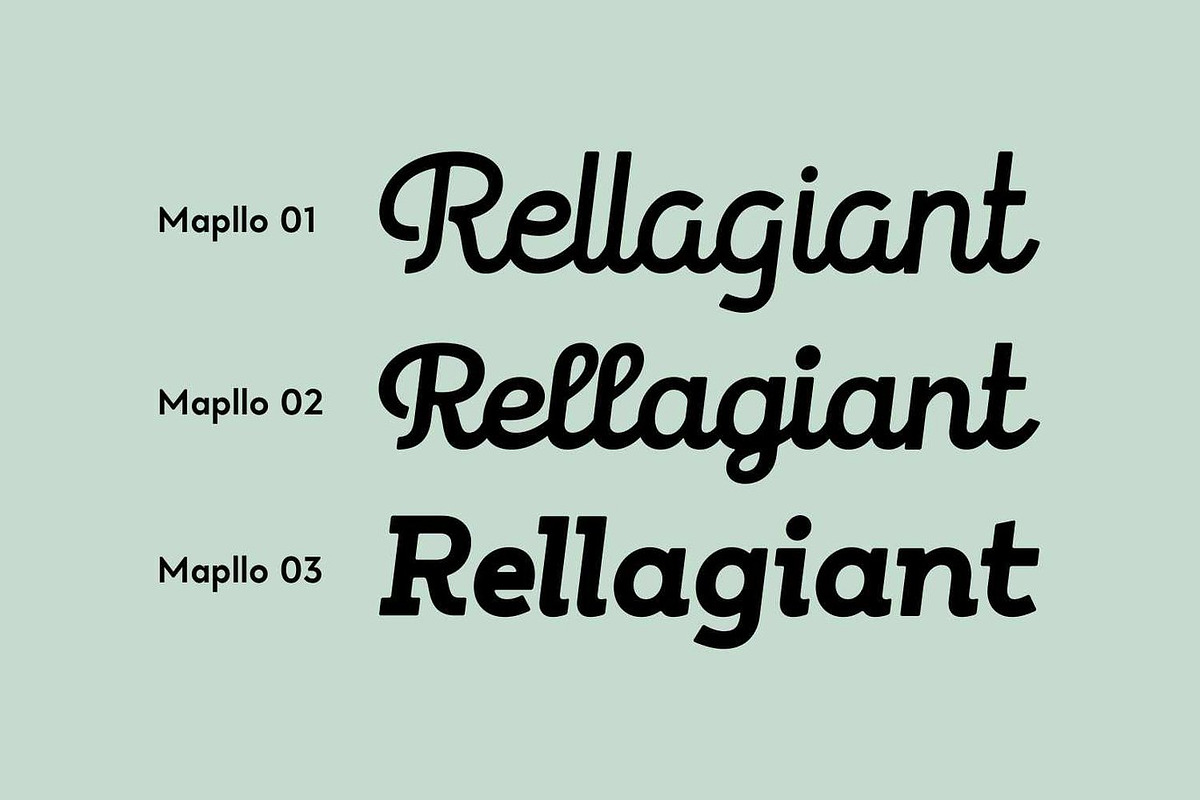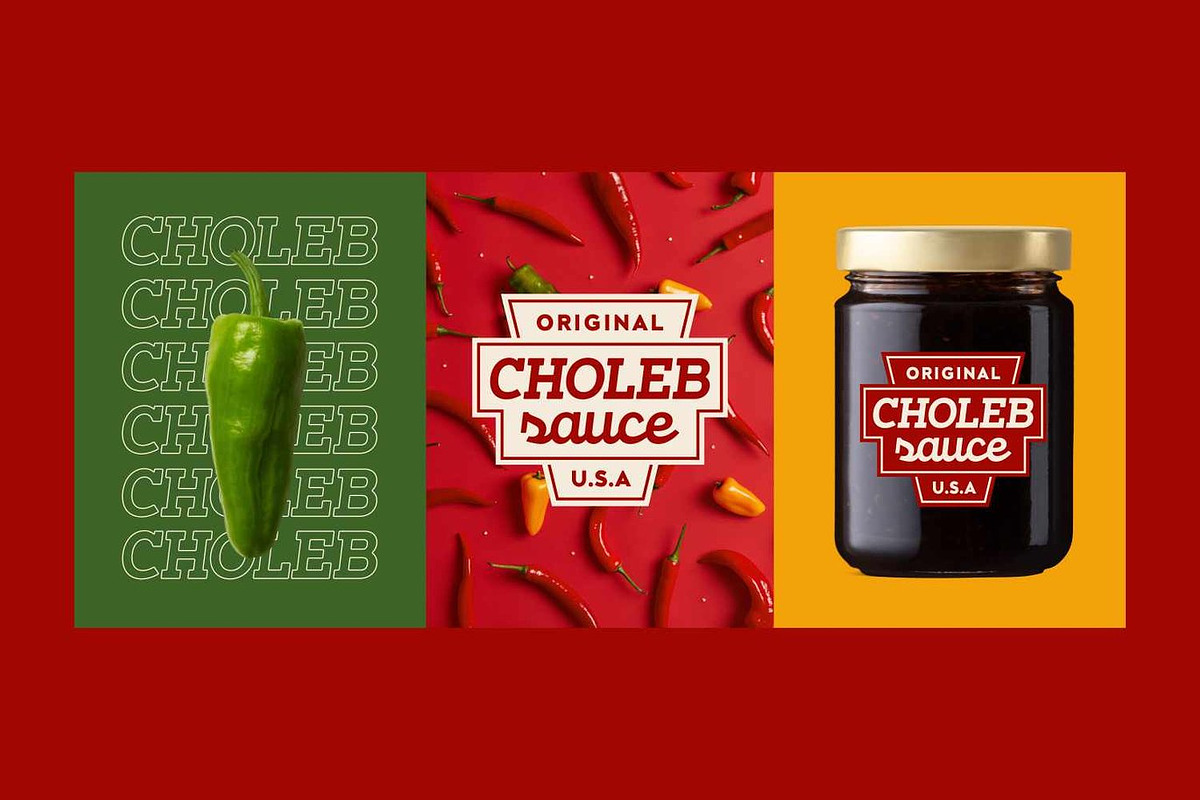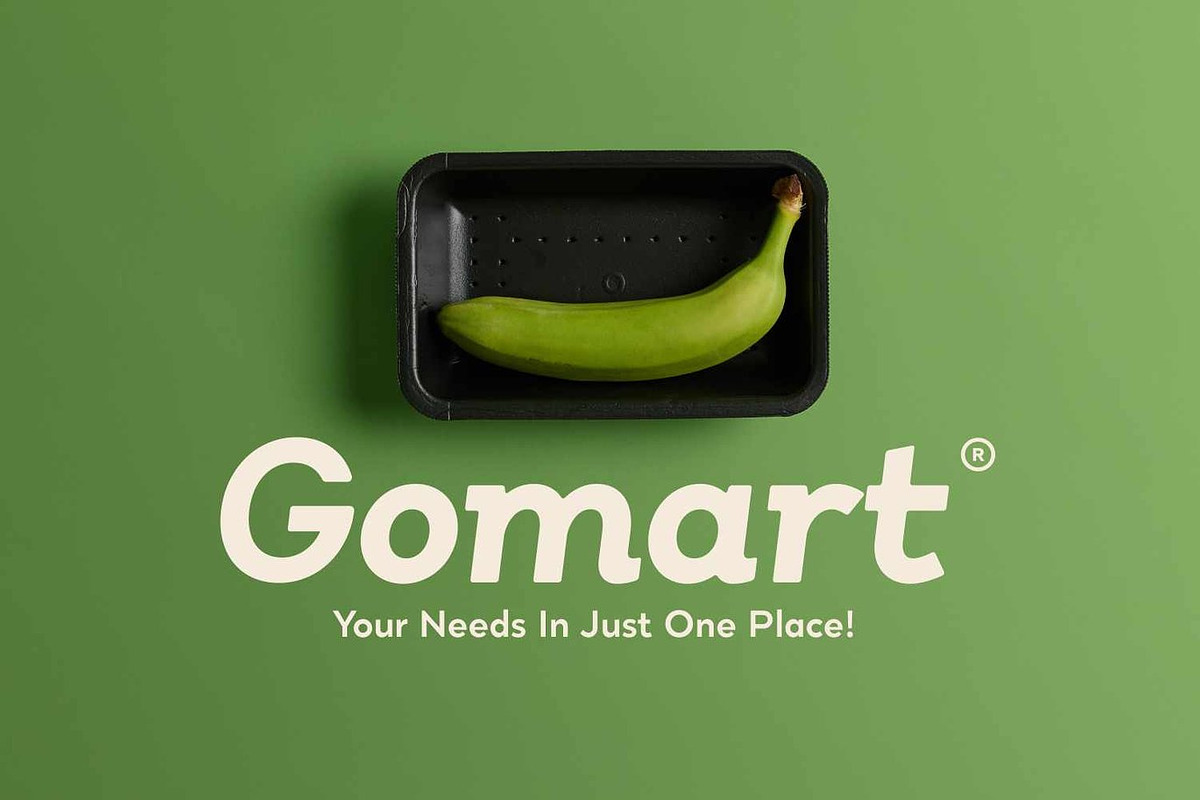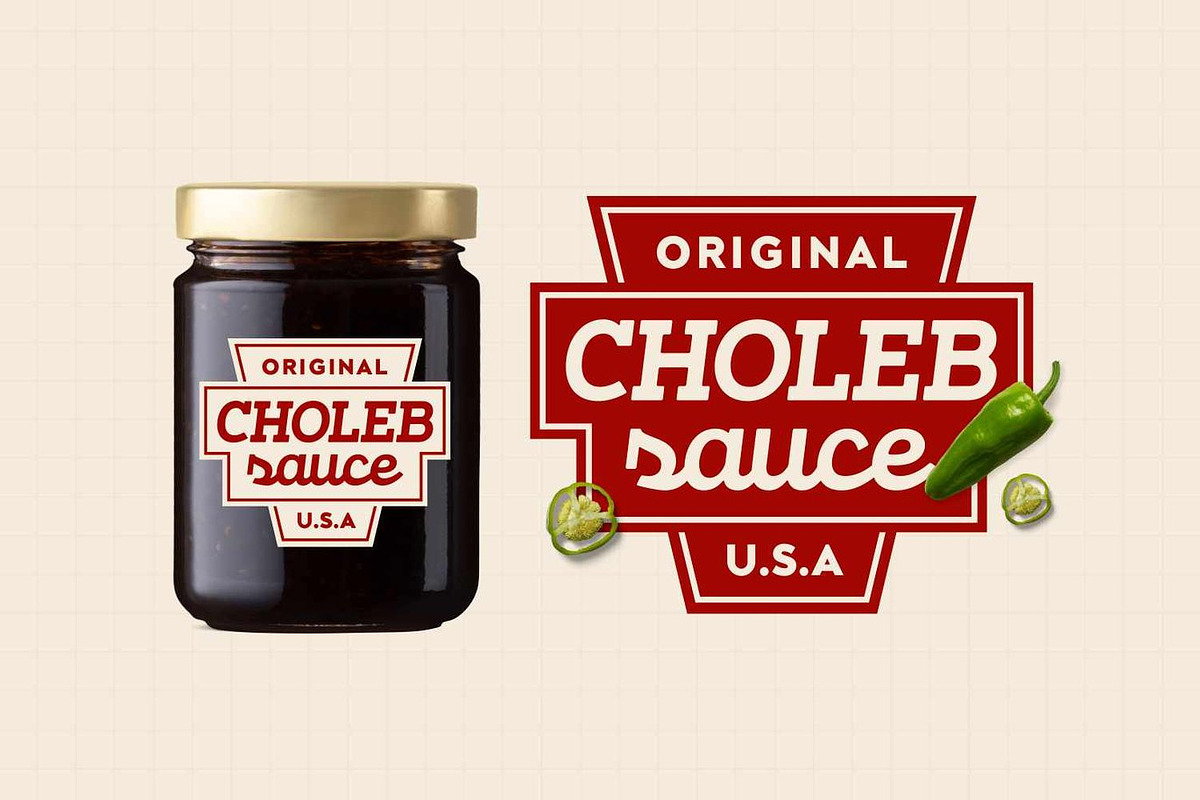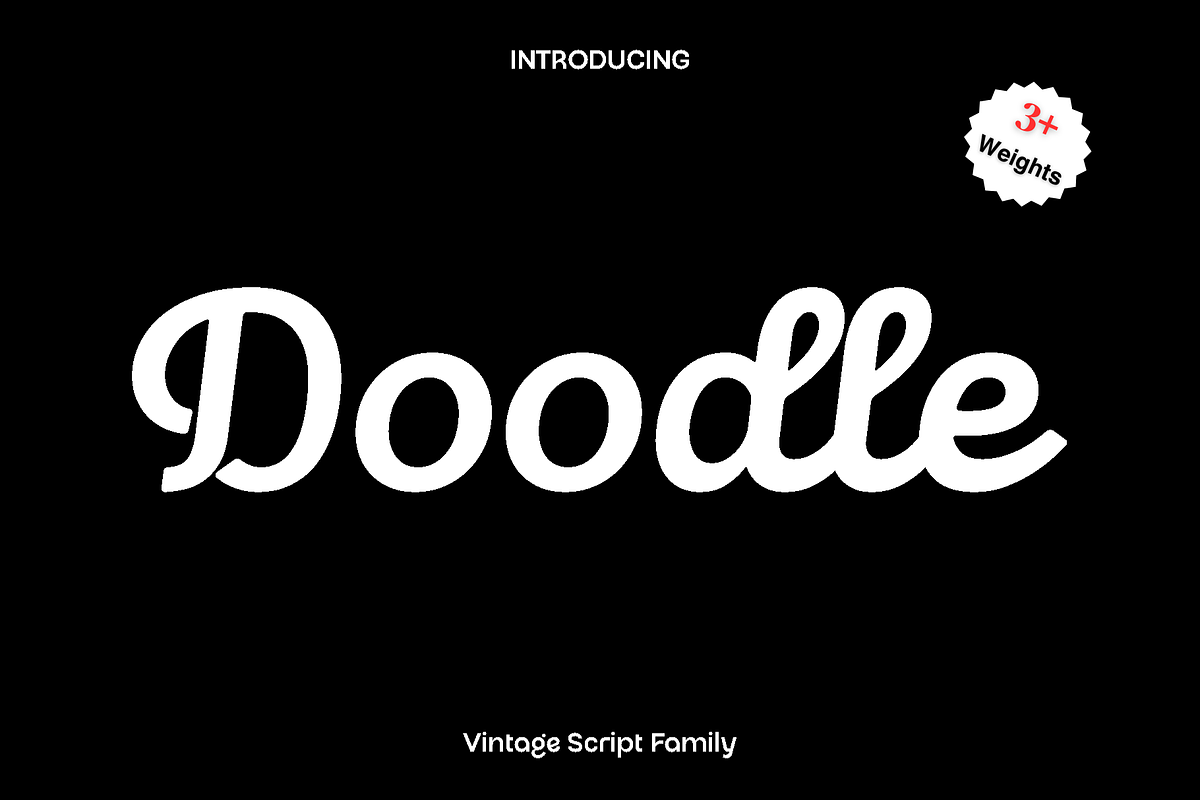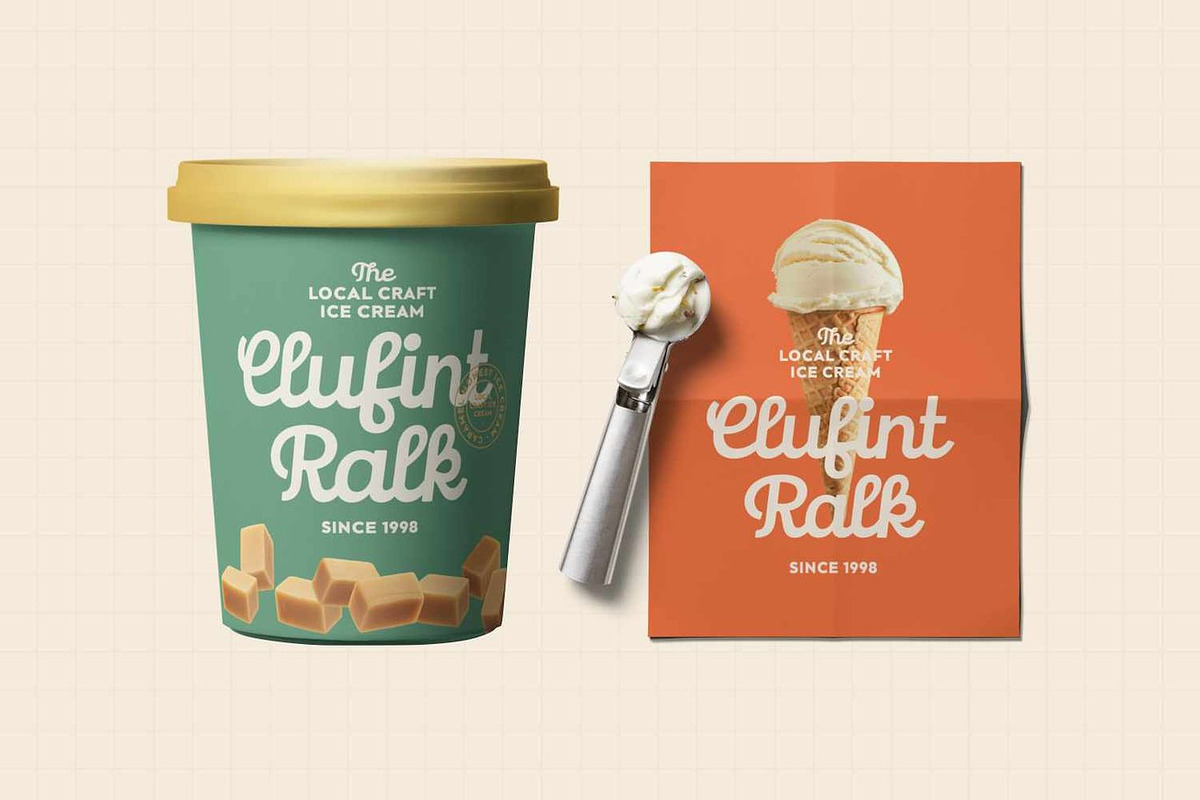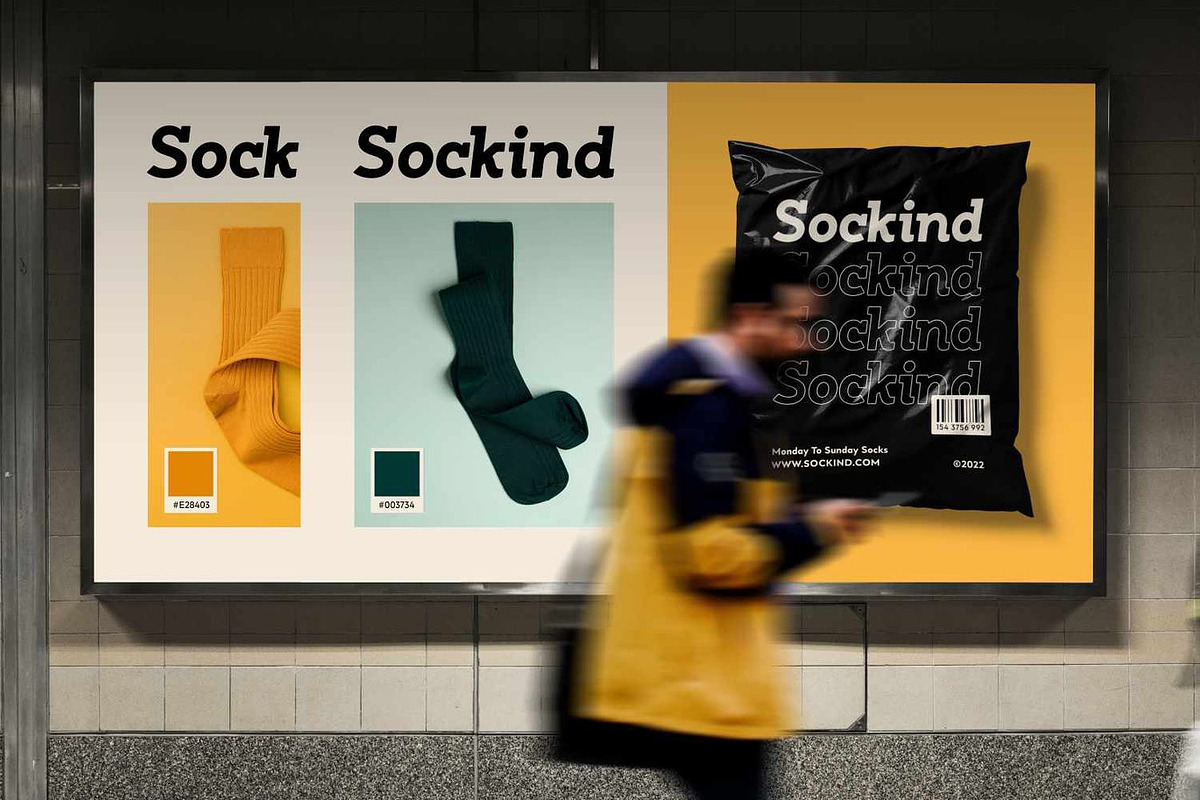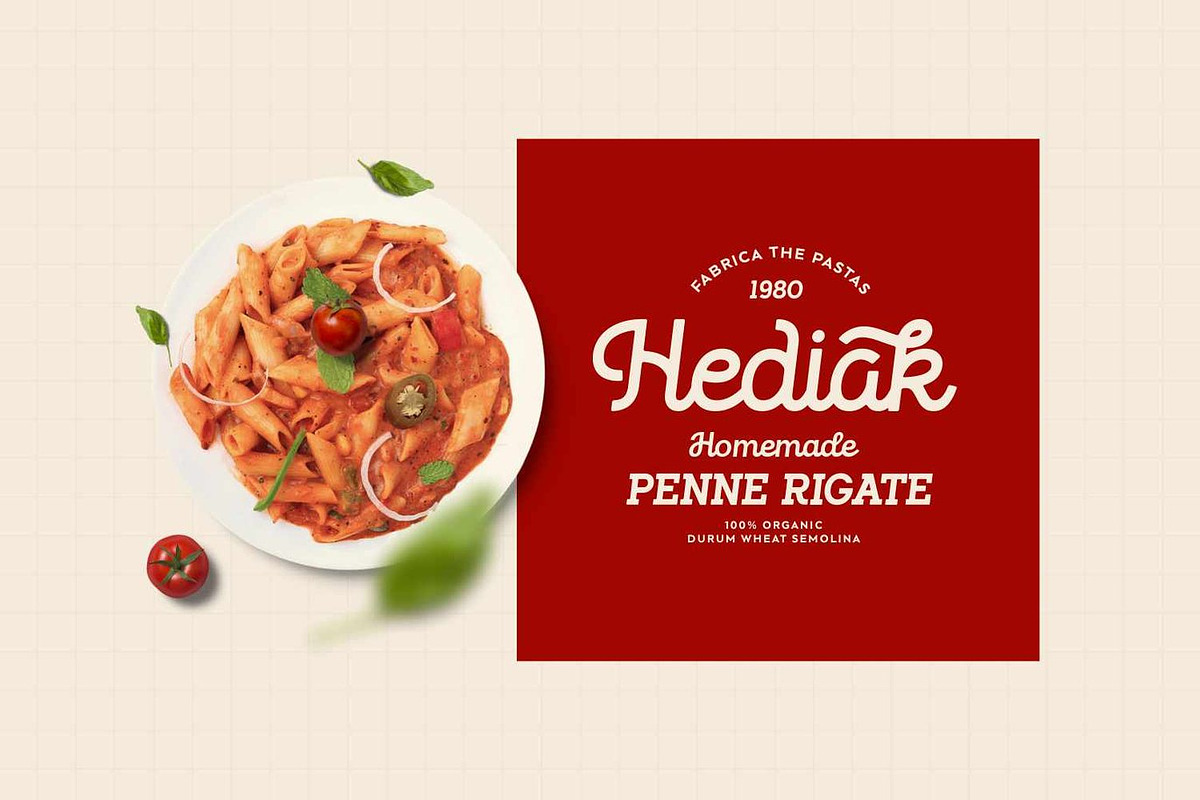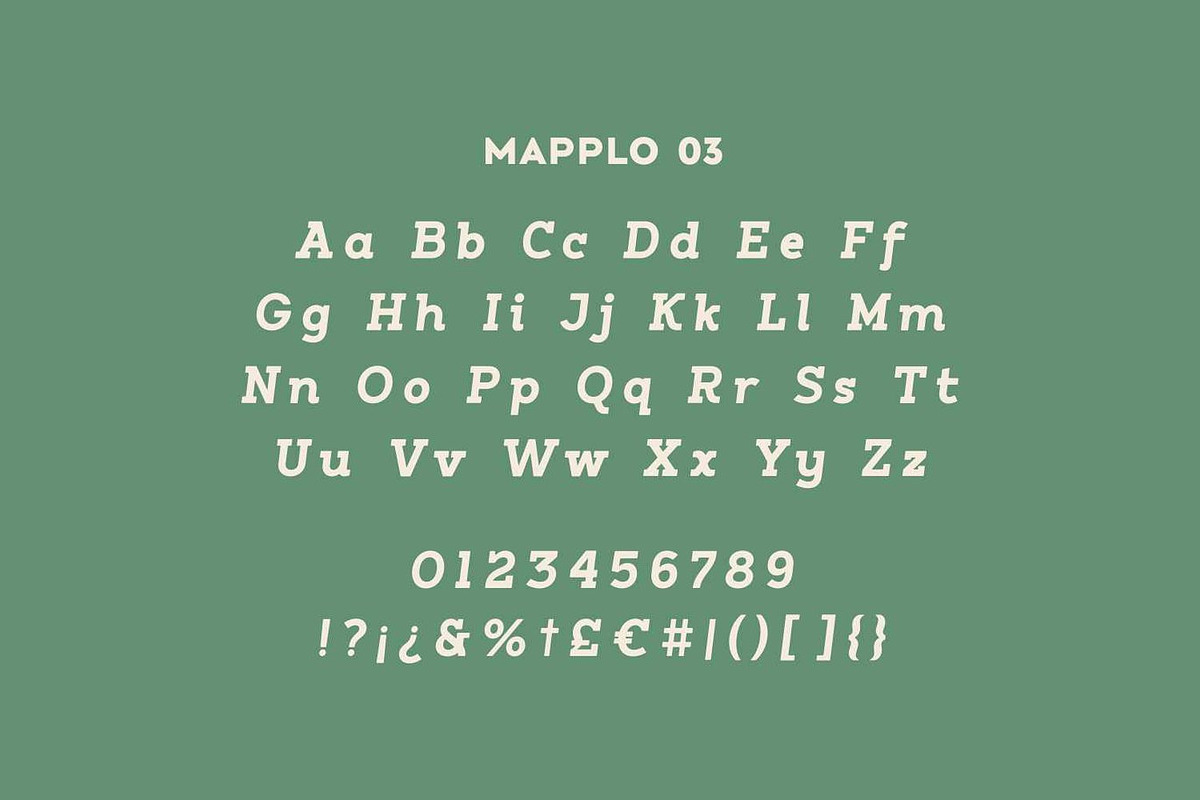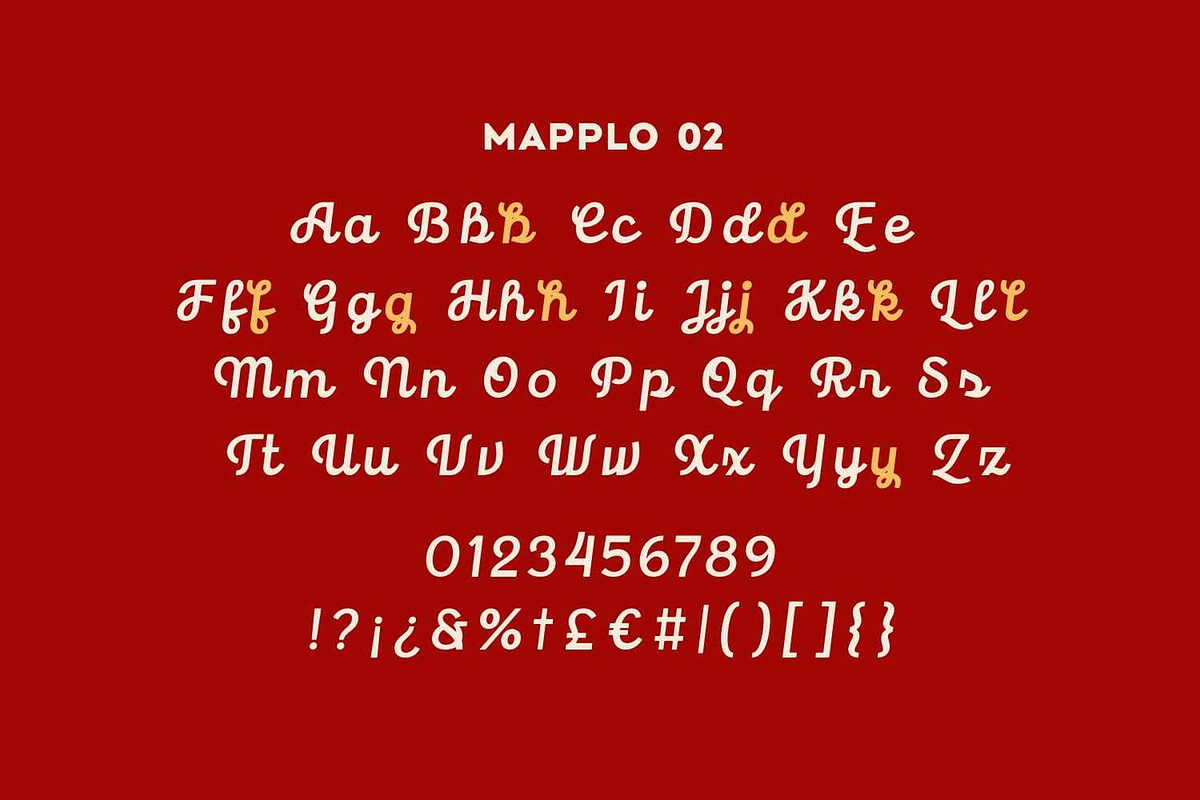
Doodle - Vintage Script Family
Doodle is a vintage-inspired script and slab serif font family that captures the bold and nostalgic essence of 1980s lettering design. Designed with a mix of strong curves and clean edges, Doodle brings together two expressive script styles and one sturdy slab serif, creating a perfect balance between retro charm and modern usability.
This versatile type family was created to elevate your logos, posters, apparel, product packaging, branding, headlines, magazines, and stationery — giving every design a handcrafted, nostalgic touch that feels both vintage and timeless.
With OpenType features, Doodle offers a wide range of alternates and ligatures, allowing you to explore endless creative combinations and craft truly custom typography. Whether you’re going for bold retro flair or an authentic hand-lettered aesthetic, Doodle makes it easy to stand out.
3 Fonts Total:
- 2 Script Styles (Regular & Bold)
- 1 Slab Serif Companion Font
- Uppercase & Lowercase Characters
- Alternates & Ligatures (OpenType)
- Symbols, Punctuation & Numerals
- Logo & Branding Design
- Vintage Signage & Posters
- Apparel & Merchandise
- Editorials & Magazines
- Product Packaging & Labels
✨ Doodle brings back the soul of the 1980s, combining handcrafted script energy with a solid slab serif foundation — ideal for designers who want to make their brand feel both classic and bold.